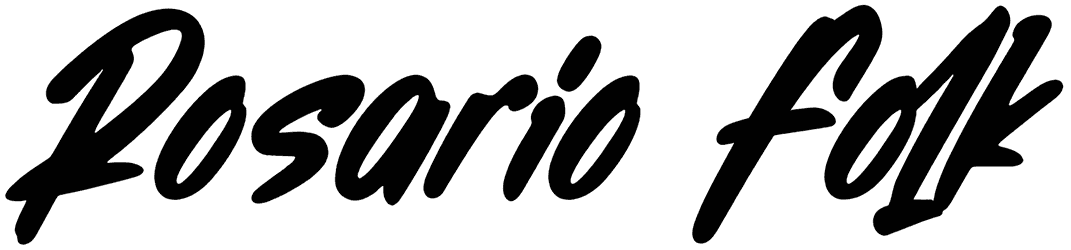
Rosario Folk Font
Rosario Folk, a joyful and crunchy font, does a wonderful job of conveying the carefree spirit of the font’s flowing shape. This font is great for use in any context where a casual, informal look is desired, such as in books, apps, posters, and greeting cards.